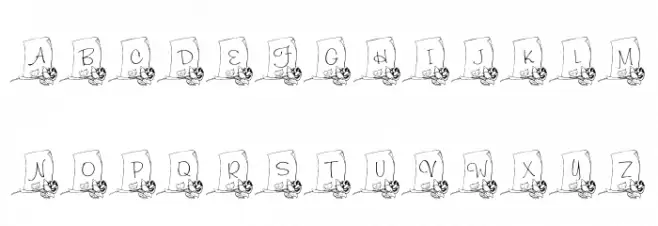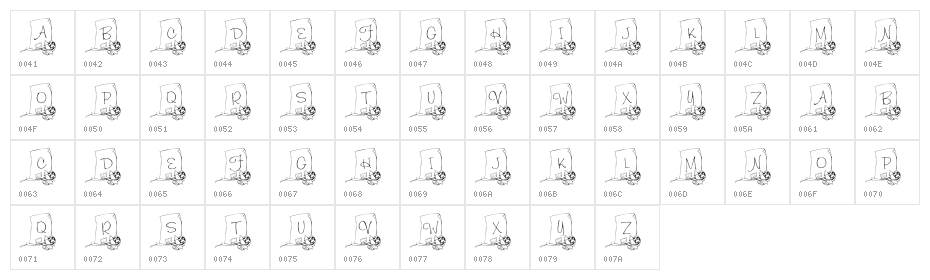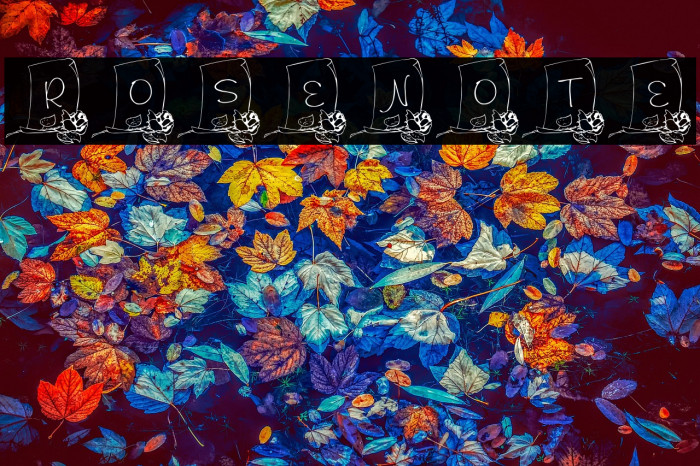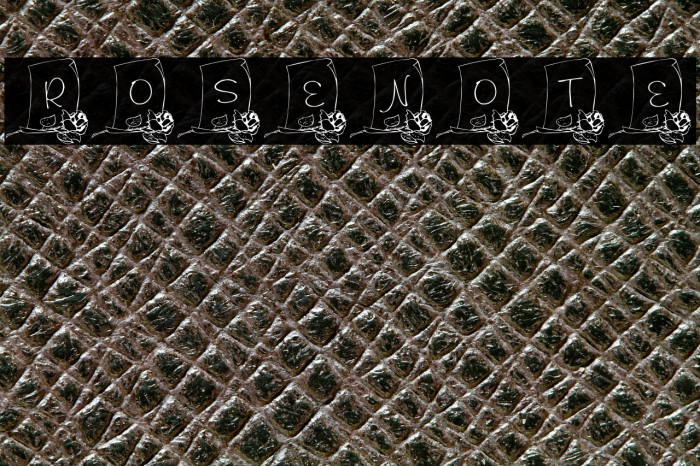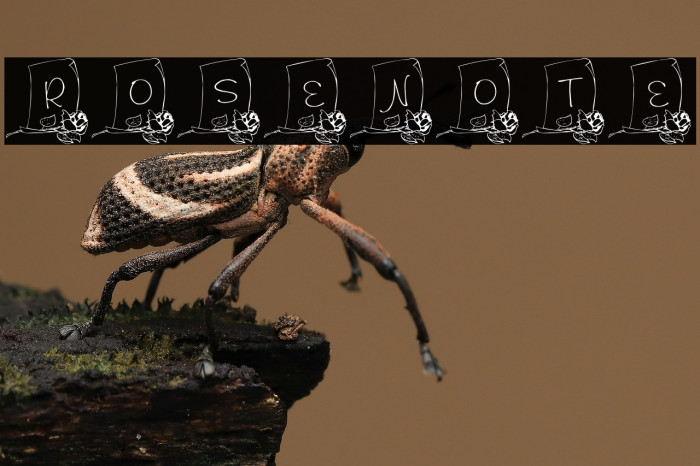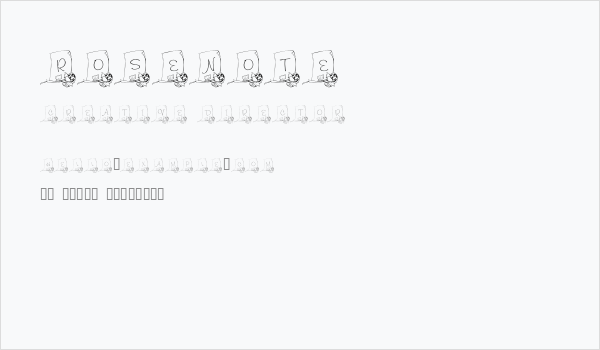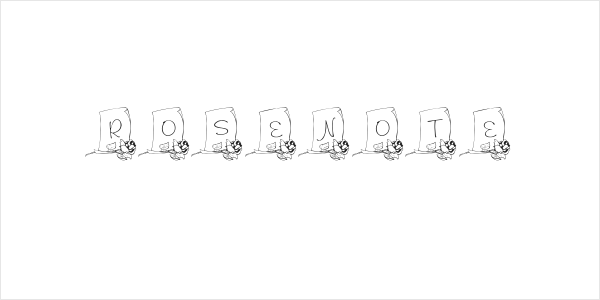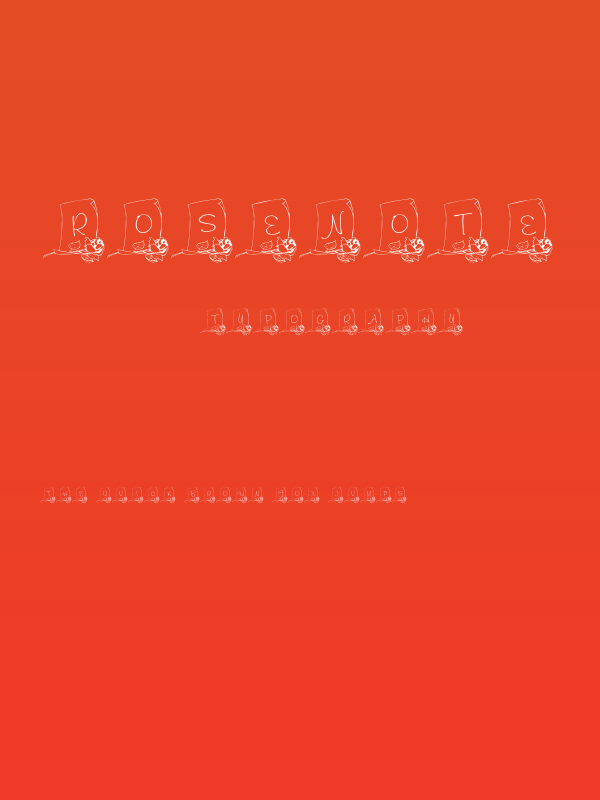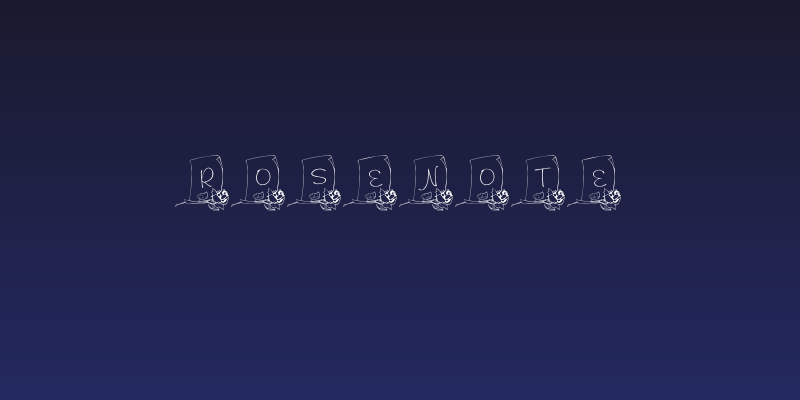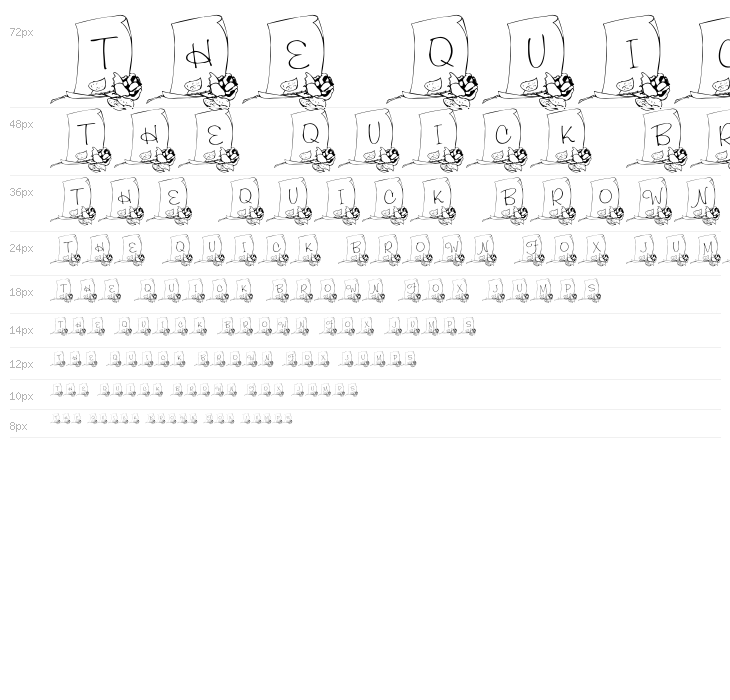
RoseNote Font
RoseNote Description
This decorative font features each letter encased within a stylized rose motif, creating a unique and artistic appearance. The letters are uppercase and lowercase, with a consistent floral theme that adds an elegant touch. The design is intricate, with each character appearing as if it is part of a blooming rose, making it ideal for projects that require a touch of nature or romance. The font's artistic style is both eye-catching and sophisticated, making it suitable for creative and decorative purposes.
A decorative font with letters encased in a rose motif, offering an artistic and elegant style from Uncategorized fonts.
- Proposed Projects: Ideal for wedding invitations, greeting cards, romantic-themed posters, and decorative branding materials.
- Use Case: Logos, Headlines, Decorative text